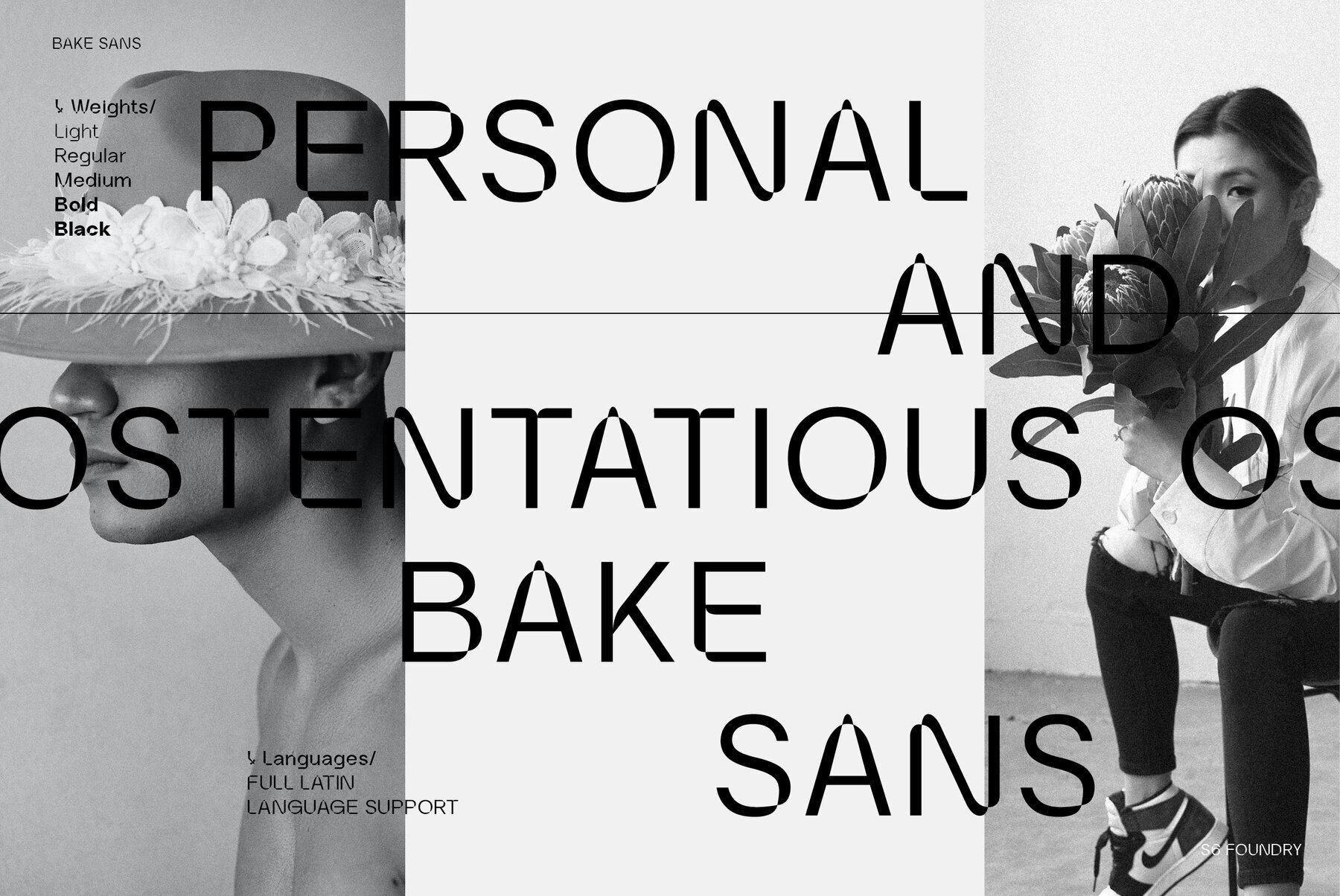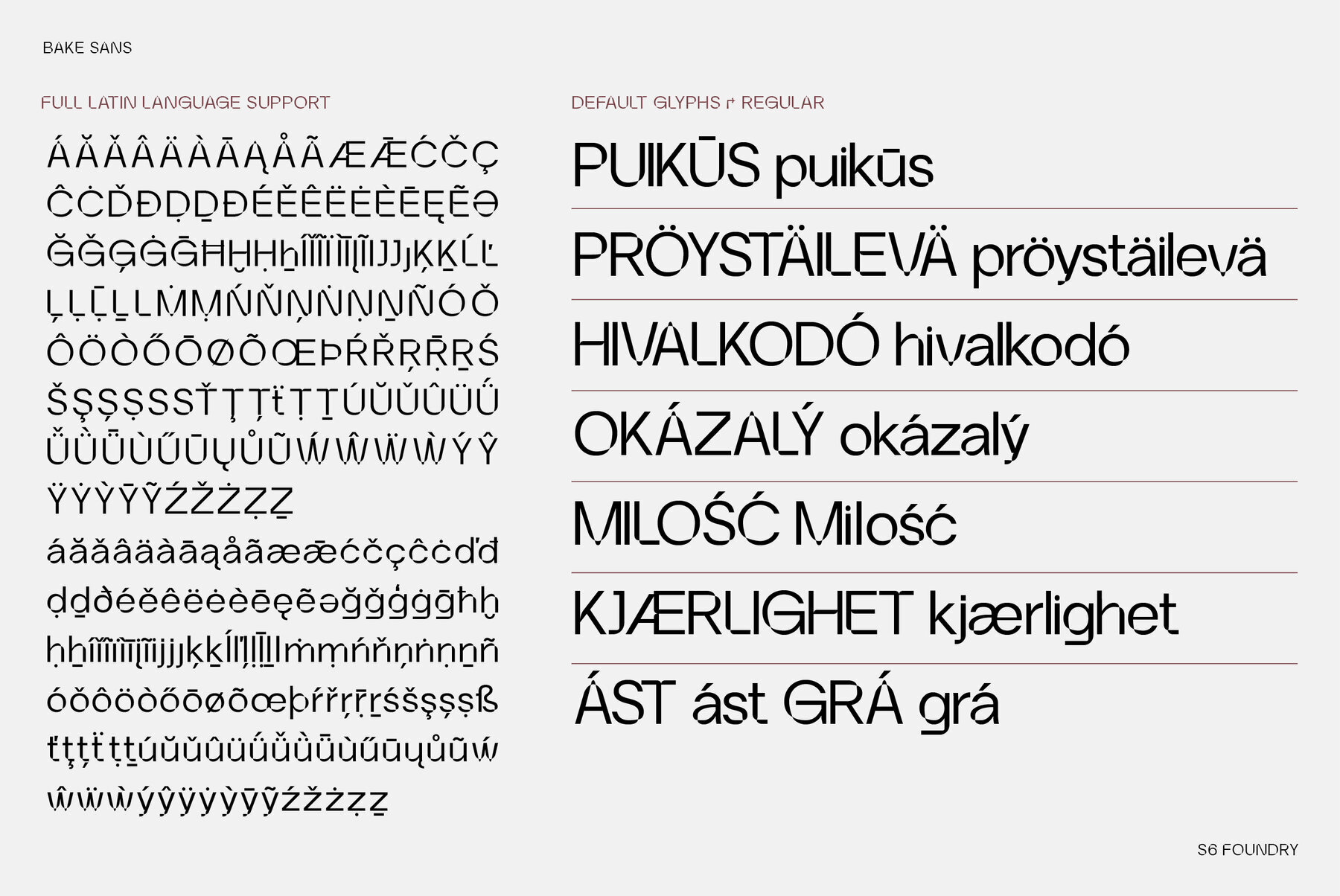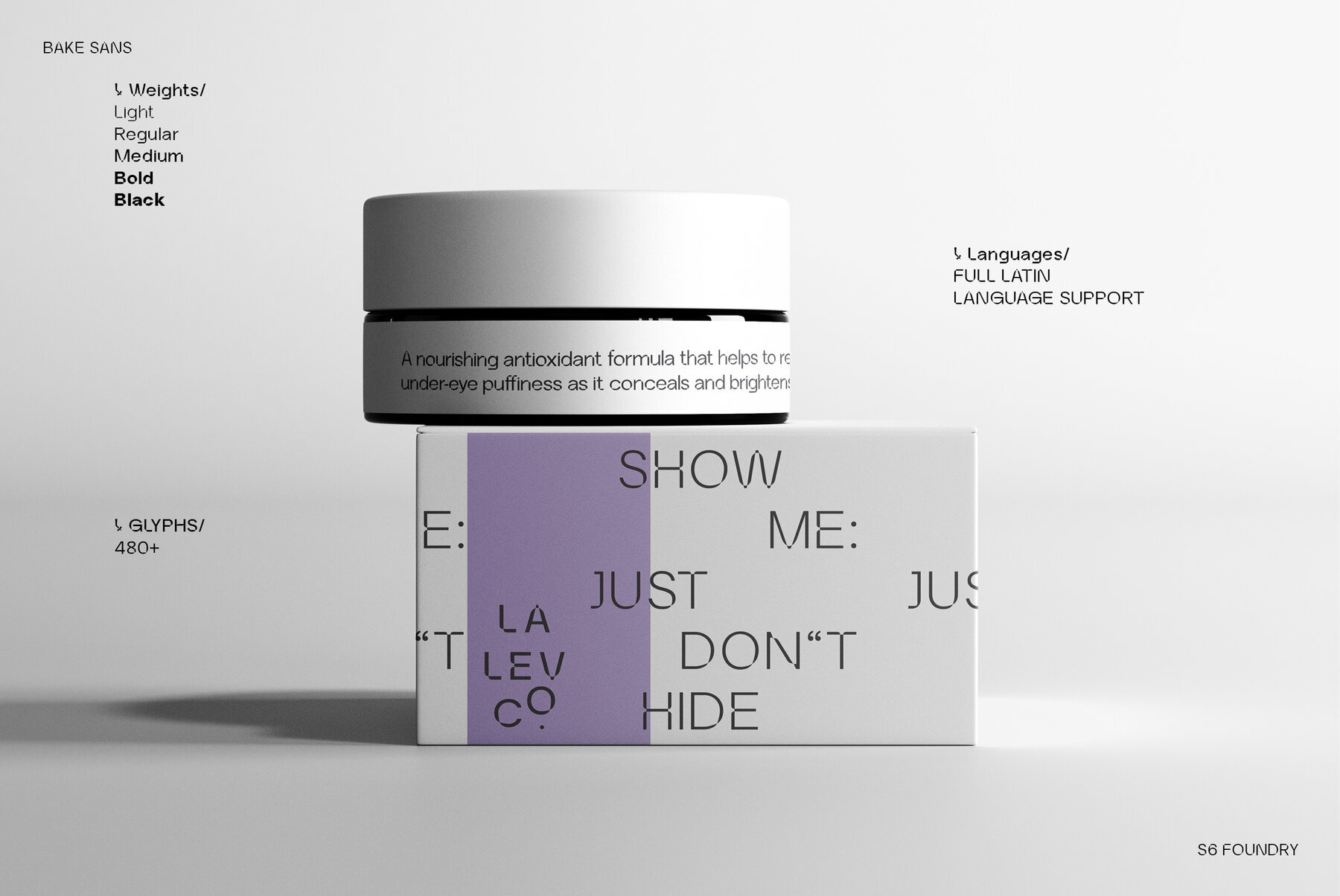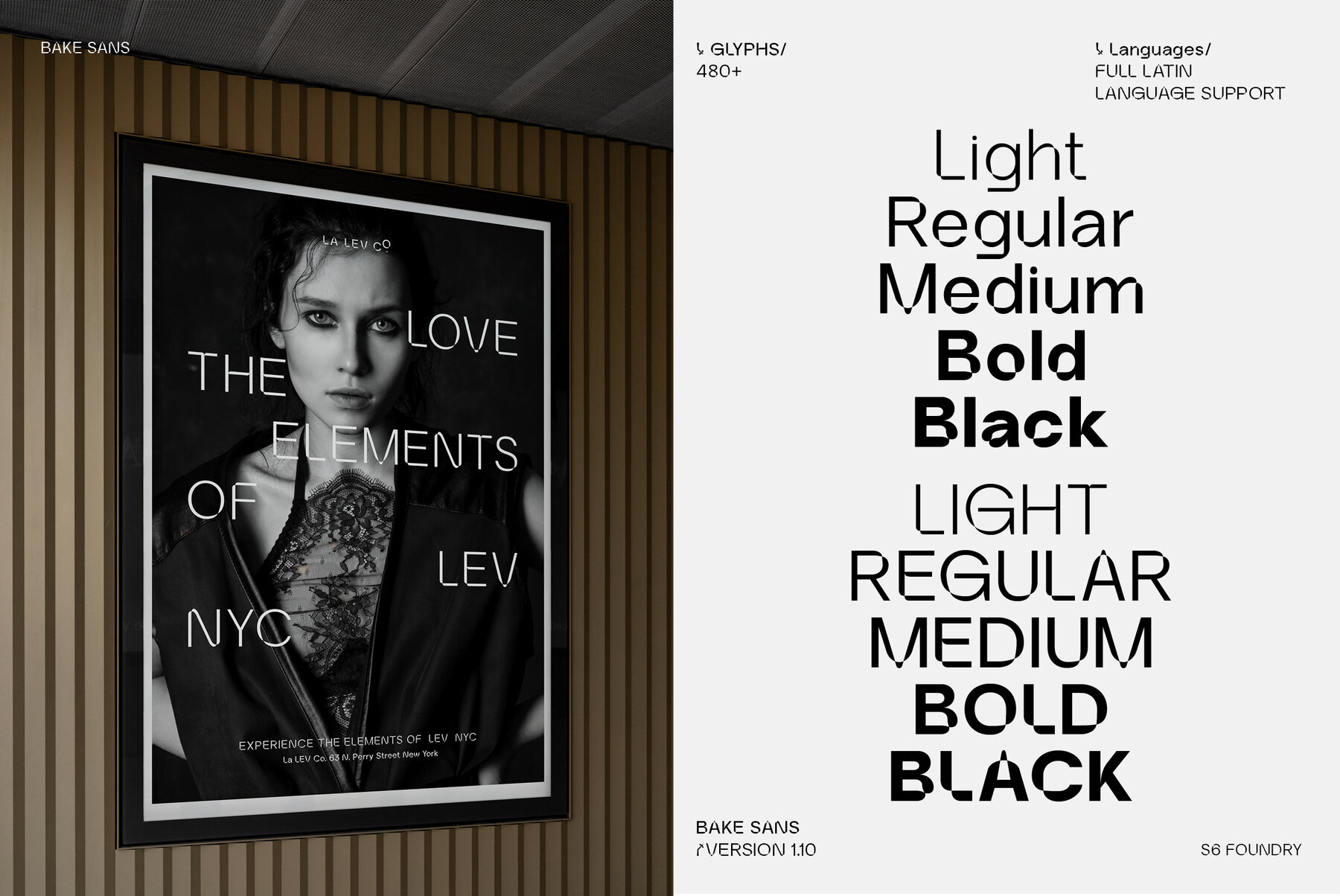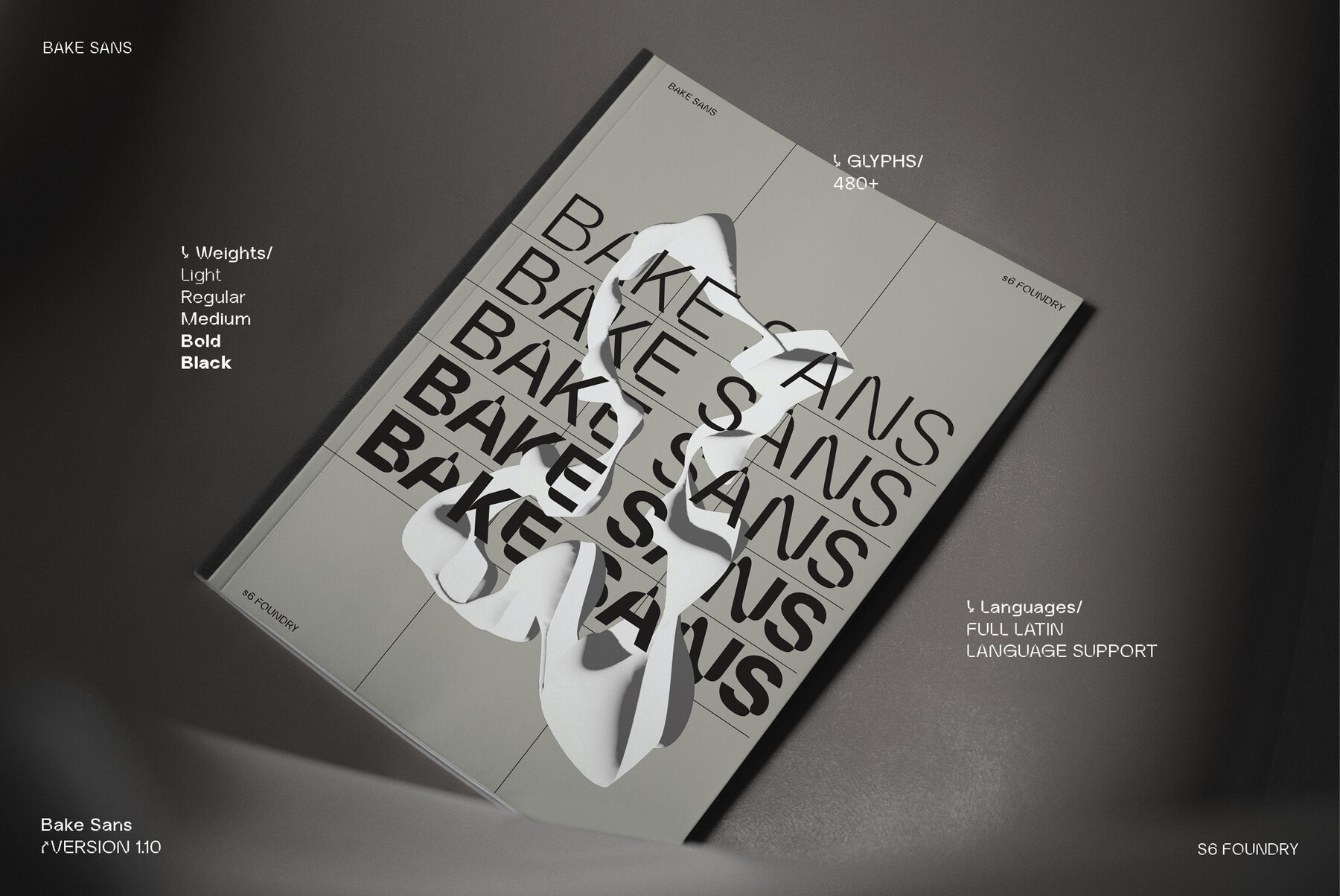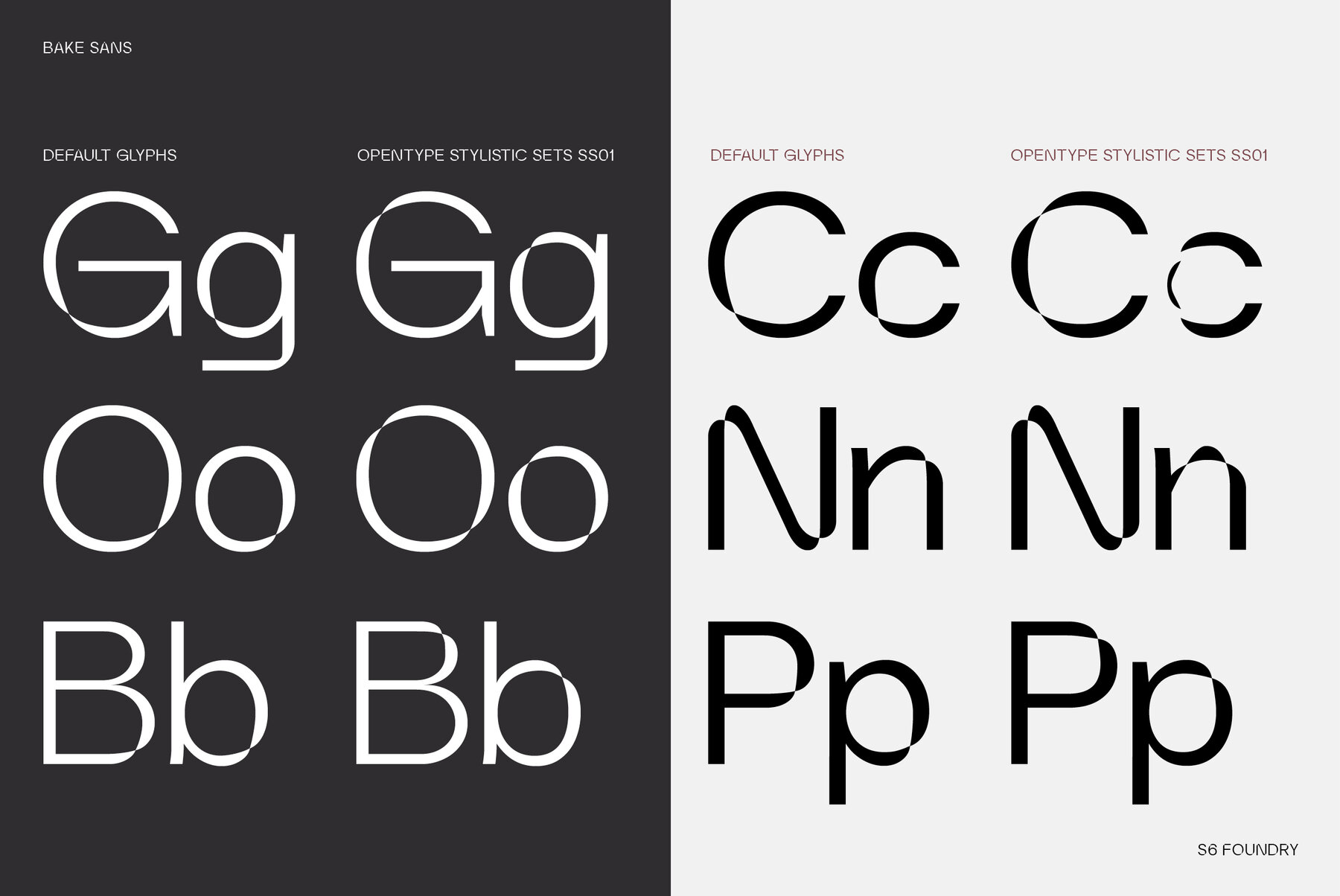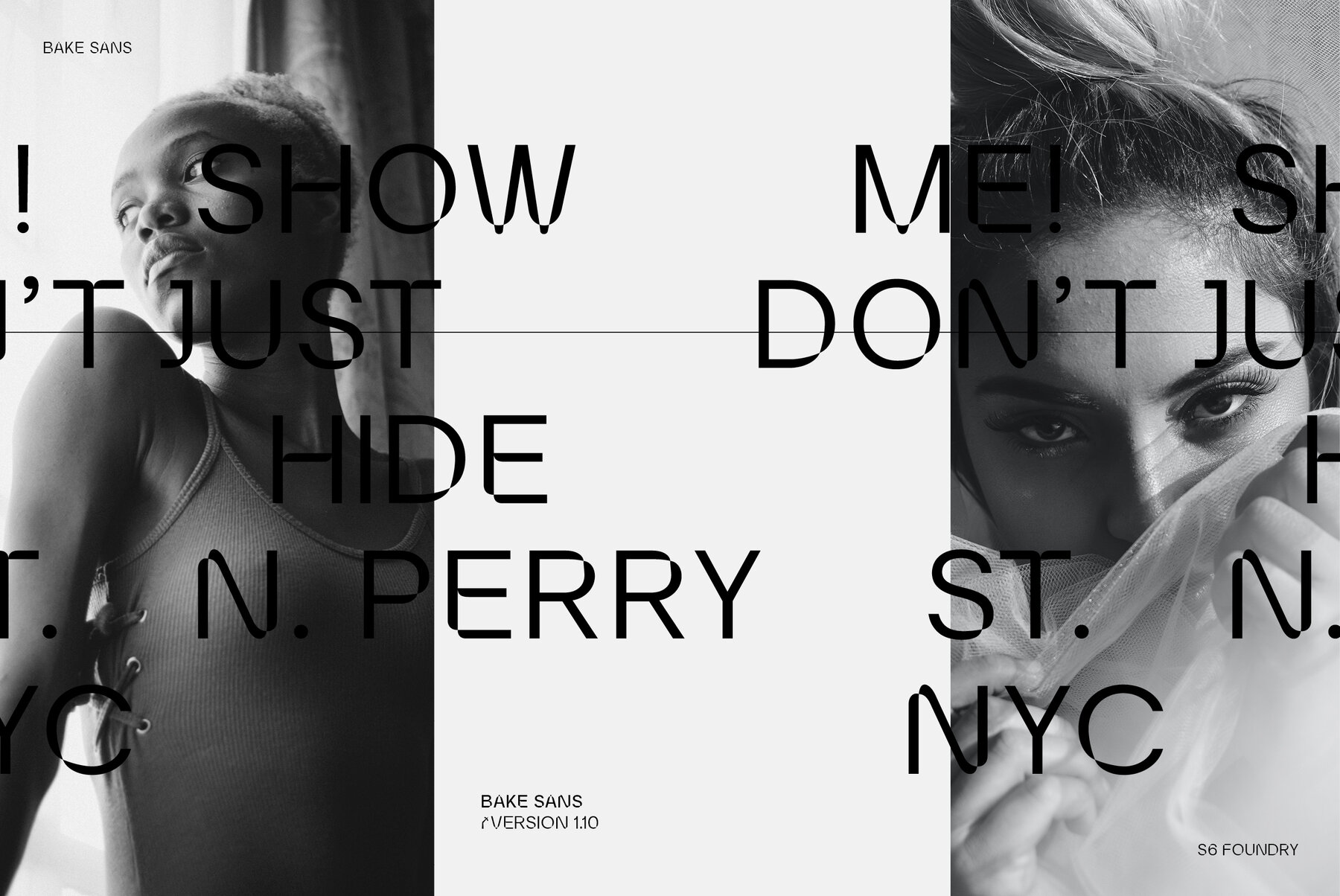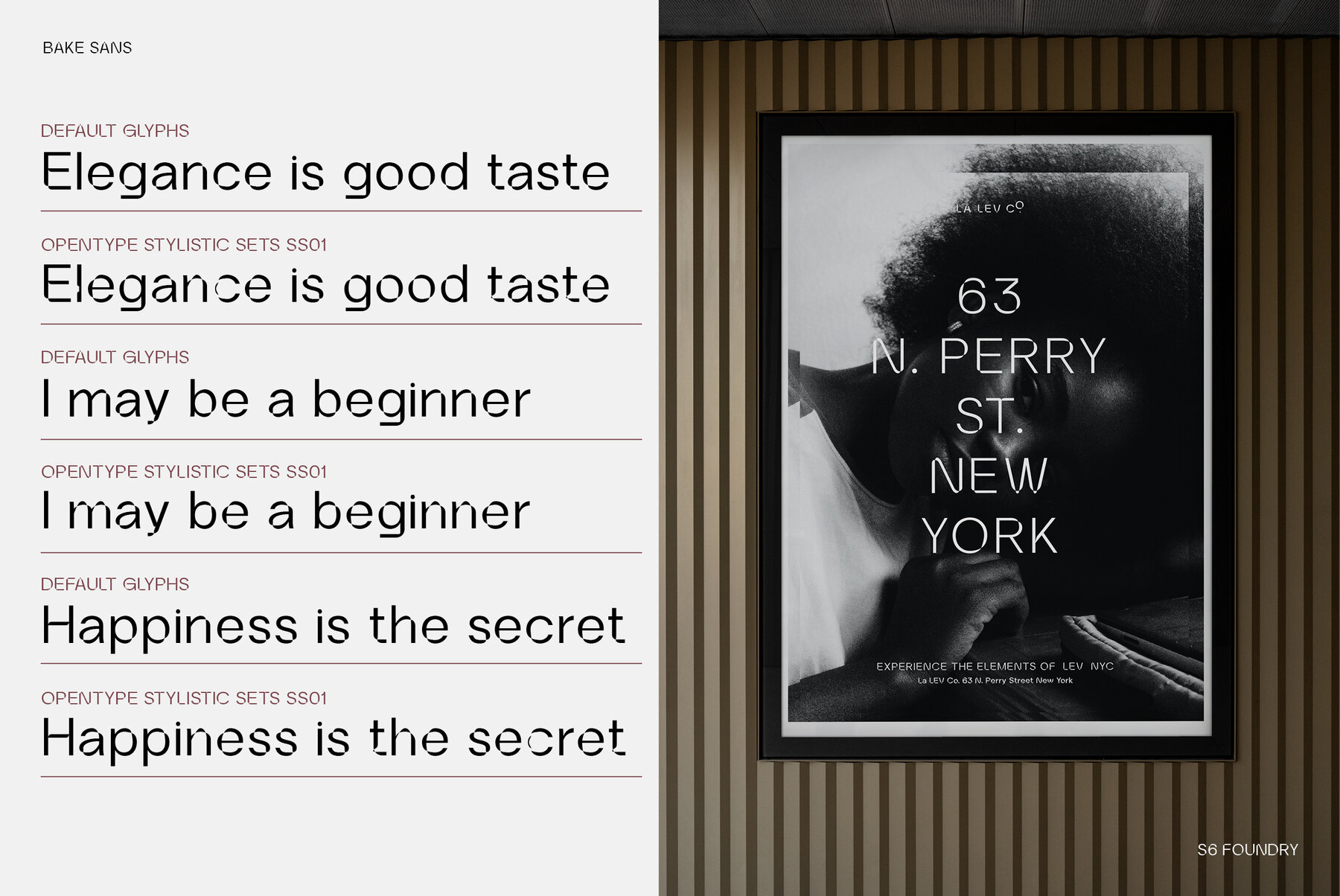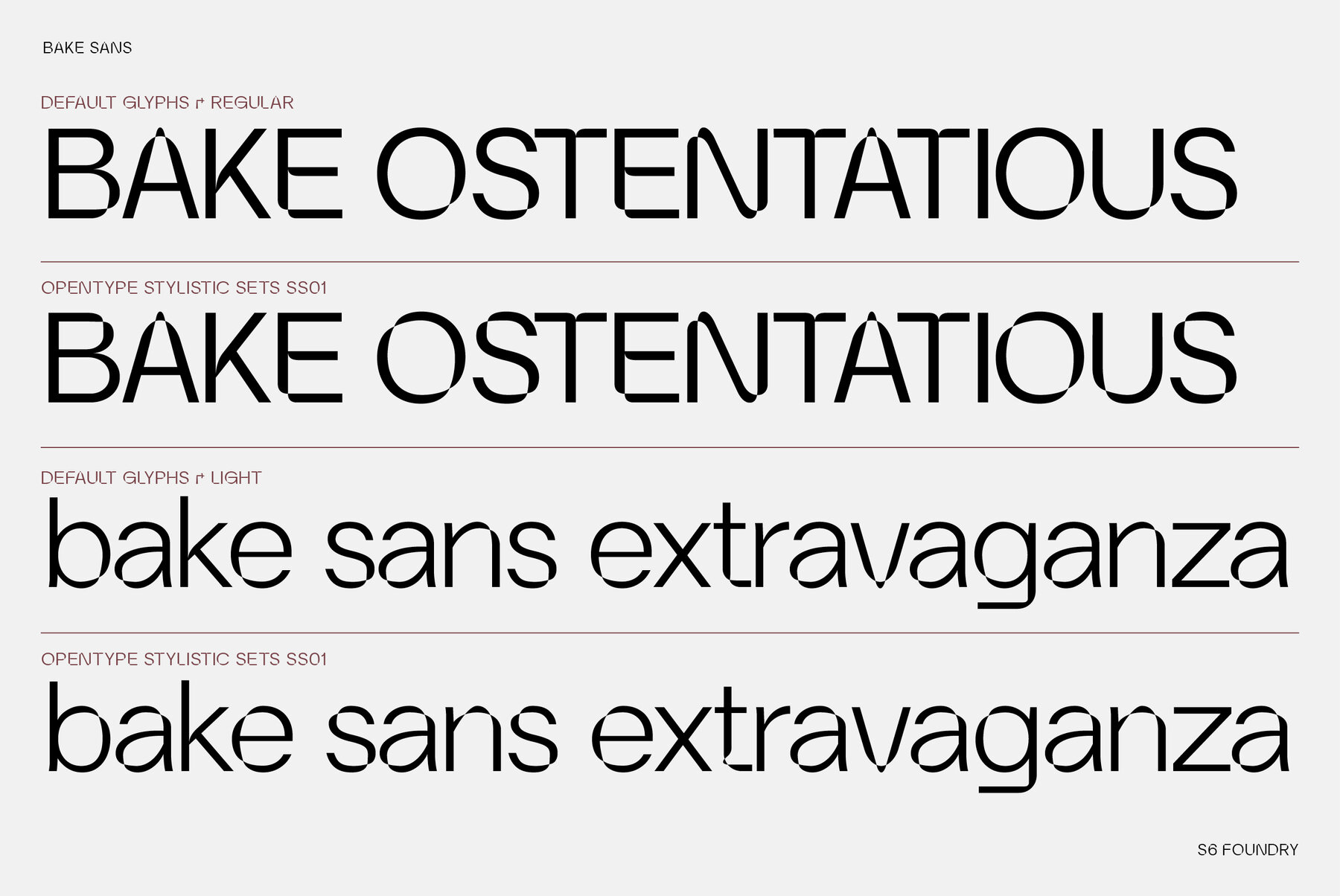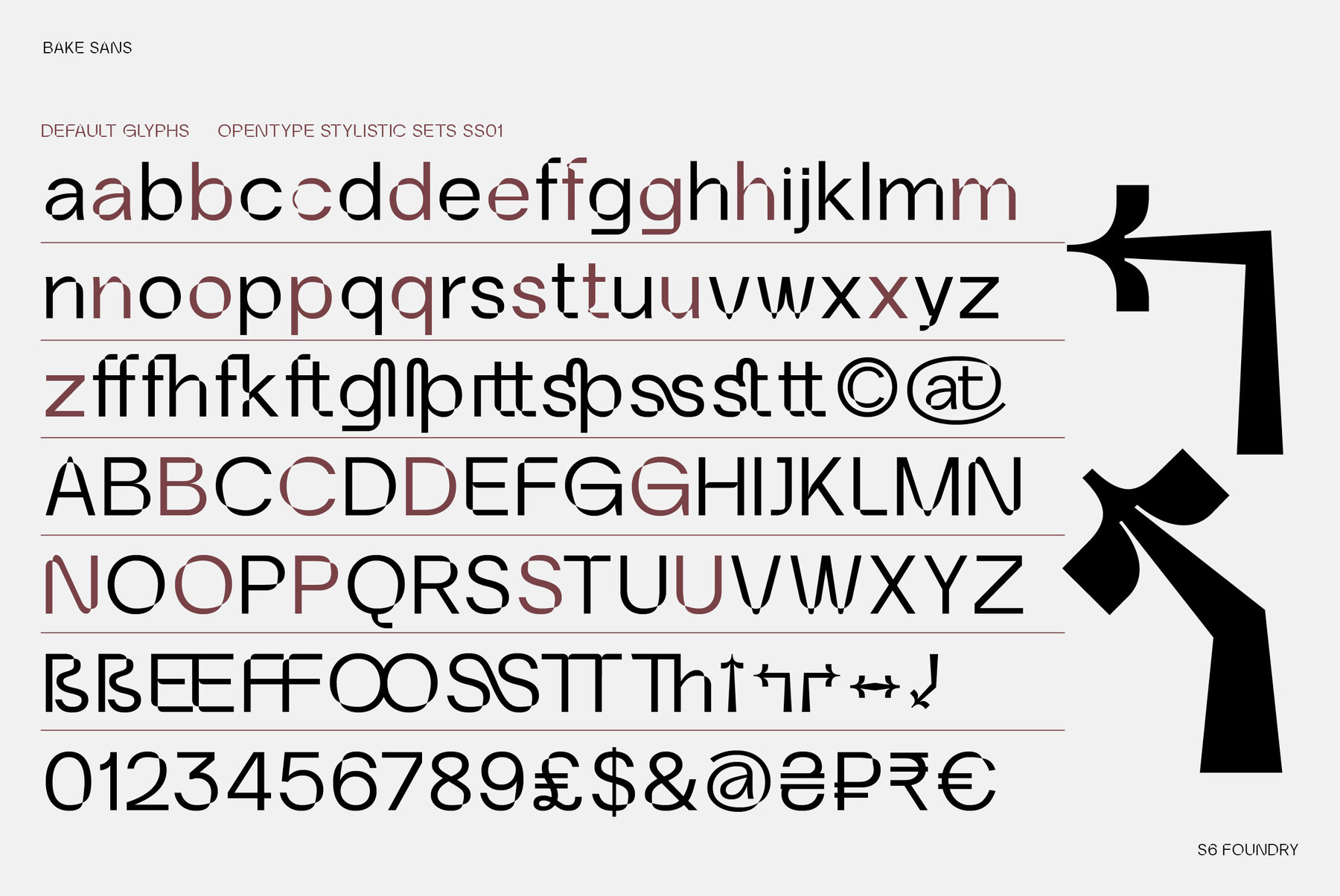
Bake Sans Font
Bake Sans is a captivating contemporary typeface that exudes style and personality. Crafted with modern and distinctive shapes and curves, this font offers the perfect visual consistency for your branding and communication projects. Elevate your designs with Bake Sans and make a lasting impression. Ideal for logos, websites, and marketing materials.